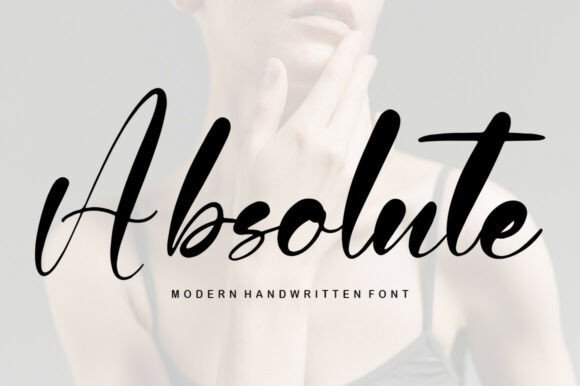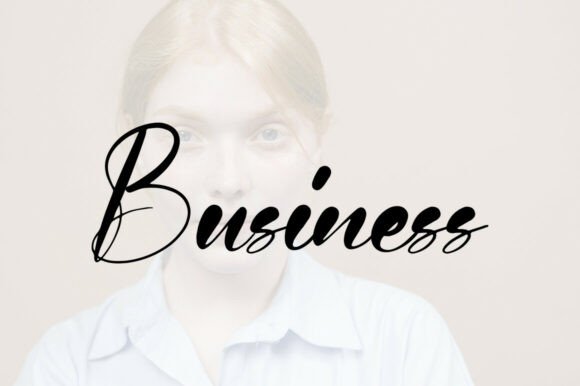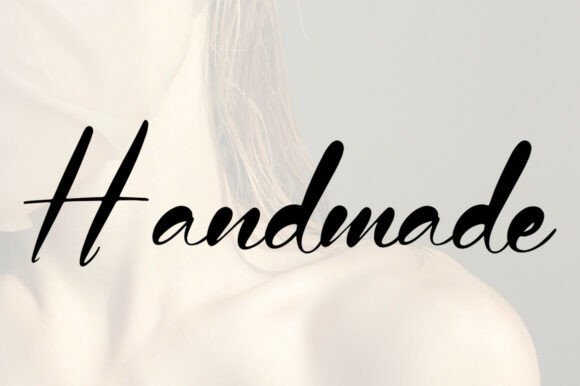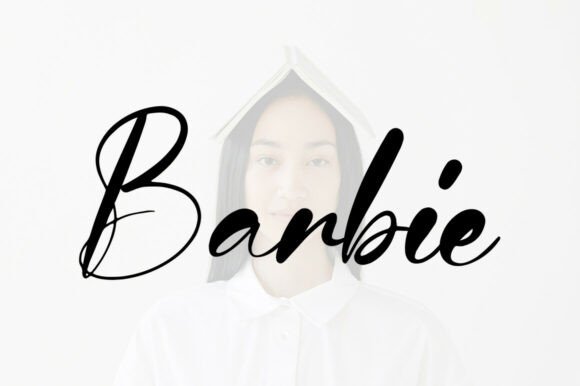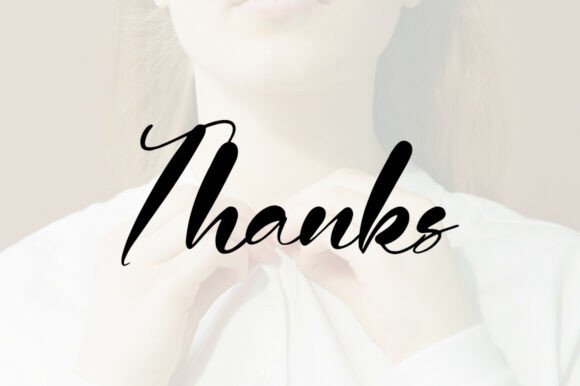
The Quest for the Perfect Script Font
As designers, we’ve all been there – staring at a blank page, trying to bring a brand to life with the perfect font. For some, it’s a moment of pure creativity, where the possibilities are endless. For others, it’s a daunting task that requires hours of research and experimentation. But what if I told you there’s a font that can make this process a breeze? Enter the Absolute Font, a beautiful, well-balanced, and graceful script font that’s sure to elevate your designs to the next level.
This stunning font is perfect for fashion branding or editorial designs, where a touch of elegance and sophistication is essential. With its smooth curves and refined lines, the Absolute Font is sure to make a lasting impression. As a designer, you know how valuable a versatile font can be, and the Absolute Font is no exception. Whether you’re working on a high-end fashion campaign or a glossy magazine spread, this font is sure to deliver.
Key Features of Absolute Font
- Unique Characteristics: Absolute Font features a unique blend of modern and classic design elements, with a focus on readability and versatility.
Designer Review: Absolute Font
I recently had the chance to work with the Absolute Font, and I must say, it’s been a mixed bag for me. Let’s start with the good stuff ✨
- First of all, the font is incredibly versatile. It works well for both body text and headings, making it a great choice for a wide range of projects.
- The font’s modern design gives it a sleek and sophisticated look that’s perfect for contemporary designs.
- I also appreciate the font’s excellent legibility, making it easy to read even at smaller font sizes.
However, there are some limitations to the font that I’ve encountered ⚠️
- One of the main issues I’ve had is with the font’s limited character set. While it’s great for basic Latin characters, it falls short when it comes to more exotic languages or special characters.
- I’ve also found the font to be a bit too bold at times, which can make it feel overwhelming in certain designs.
Overall, I’d say the Absolute Font is a solid choice for projects where you need a clean and modern look. However, it’s not without its limitations, and you may need to do some additional work to get the most out of it.
Tips for Getting the Most Out of Absolute Font
Use Absolute Font to create bold headings and titles that grab attention. Experiment with different font sizes and styles to add visual interest to your design. Consider using Absolute Font in combination with other fonts to create a unique and eye-catching typography scheme.
Use Absolute Font for:
- Creating bold headings and titles
- Designing logos and branding materials
- Adding visual interest to presentations and documents
Alternatives to Absolute Font for Designers
When looking for alternatives to Absolute Font, consider the following options, each with its unique characteristics and uses.
Open Sans is a modern sans-serif font designed by Steve Matteson. It’s highly legible and versatile, making it suitable for digital and print materials. Open Sans is a great choice for body text and headings due to its clean and simple design.